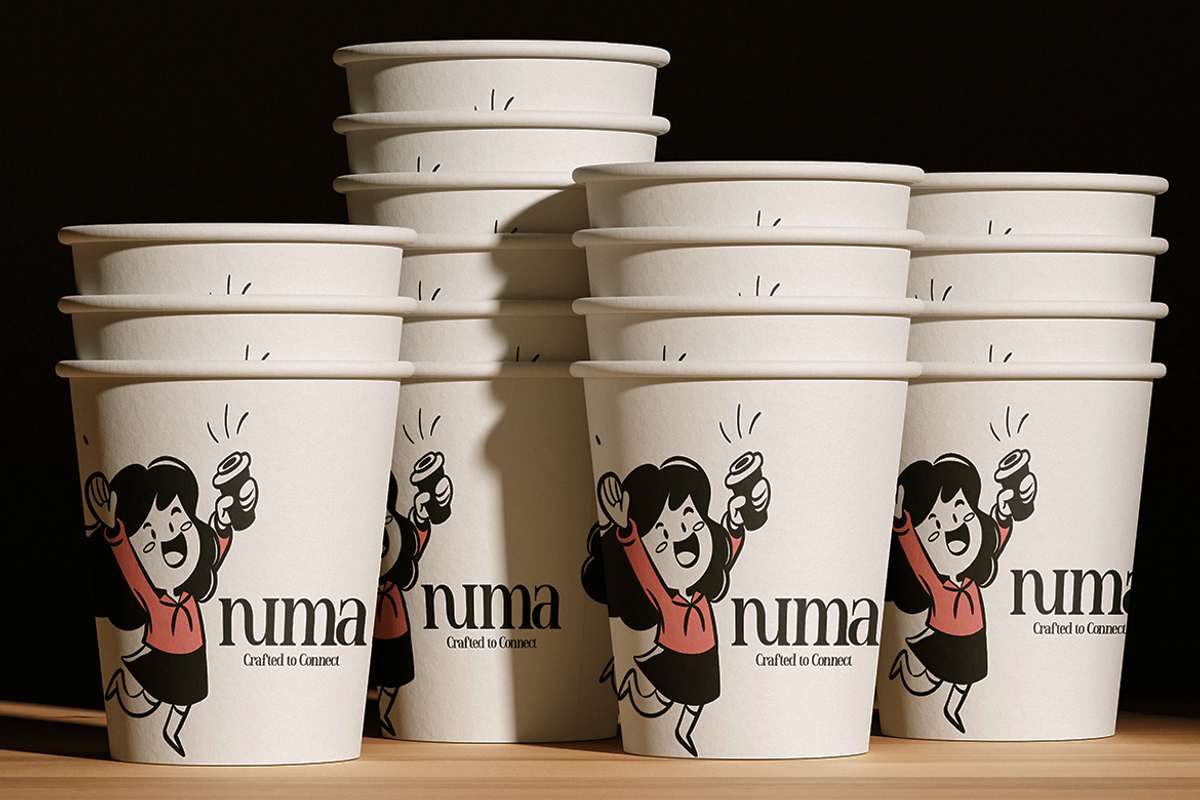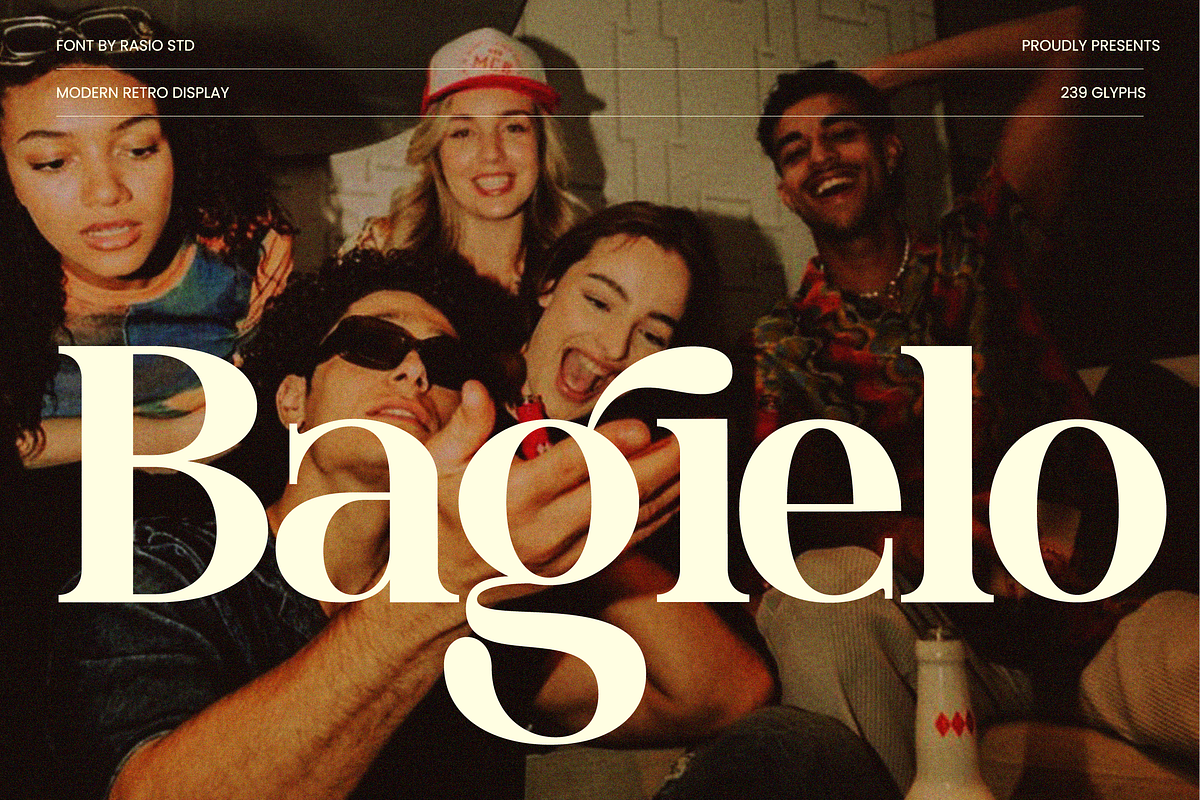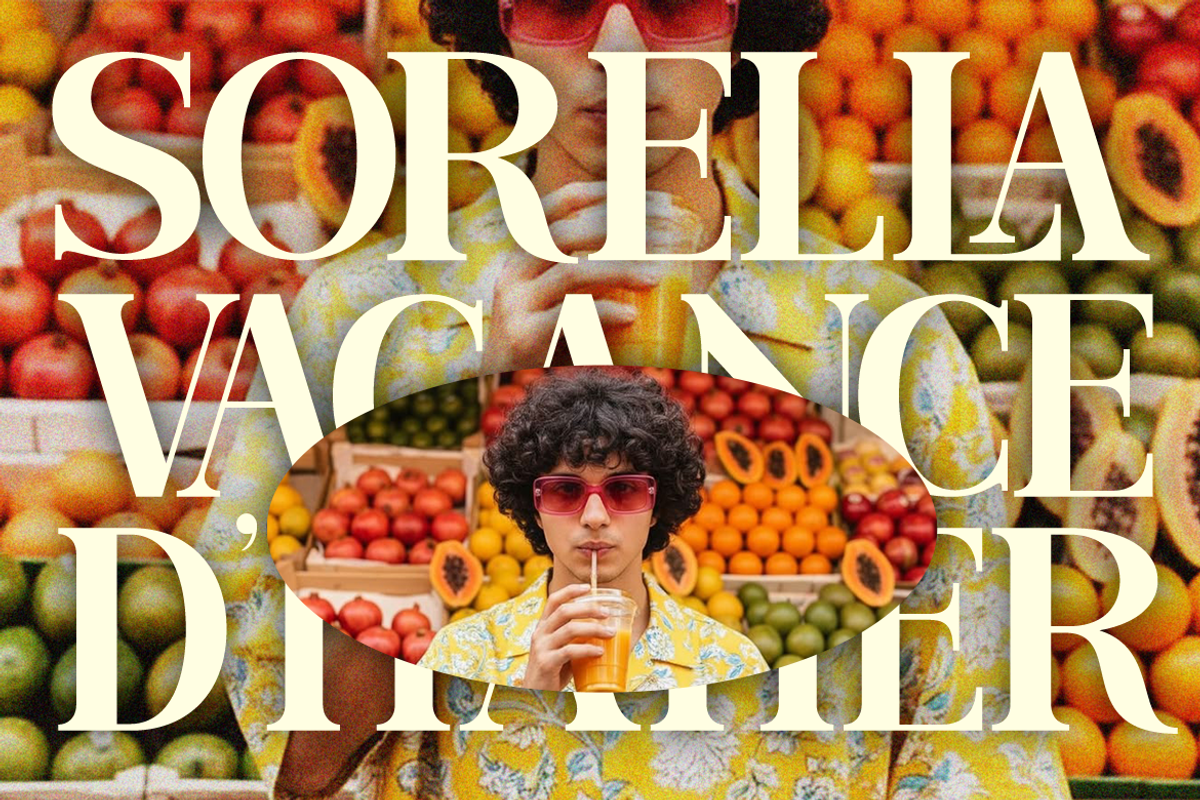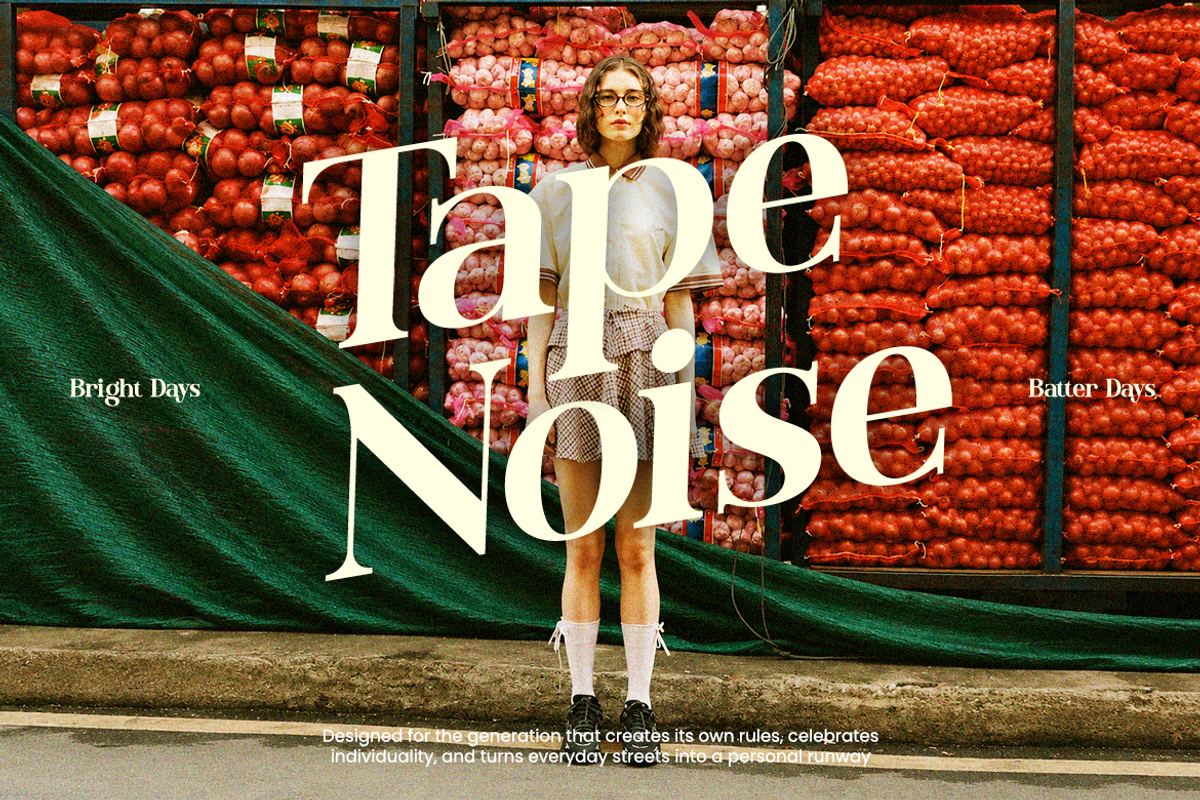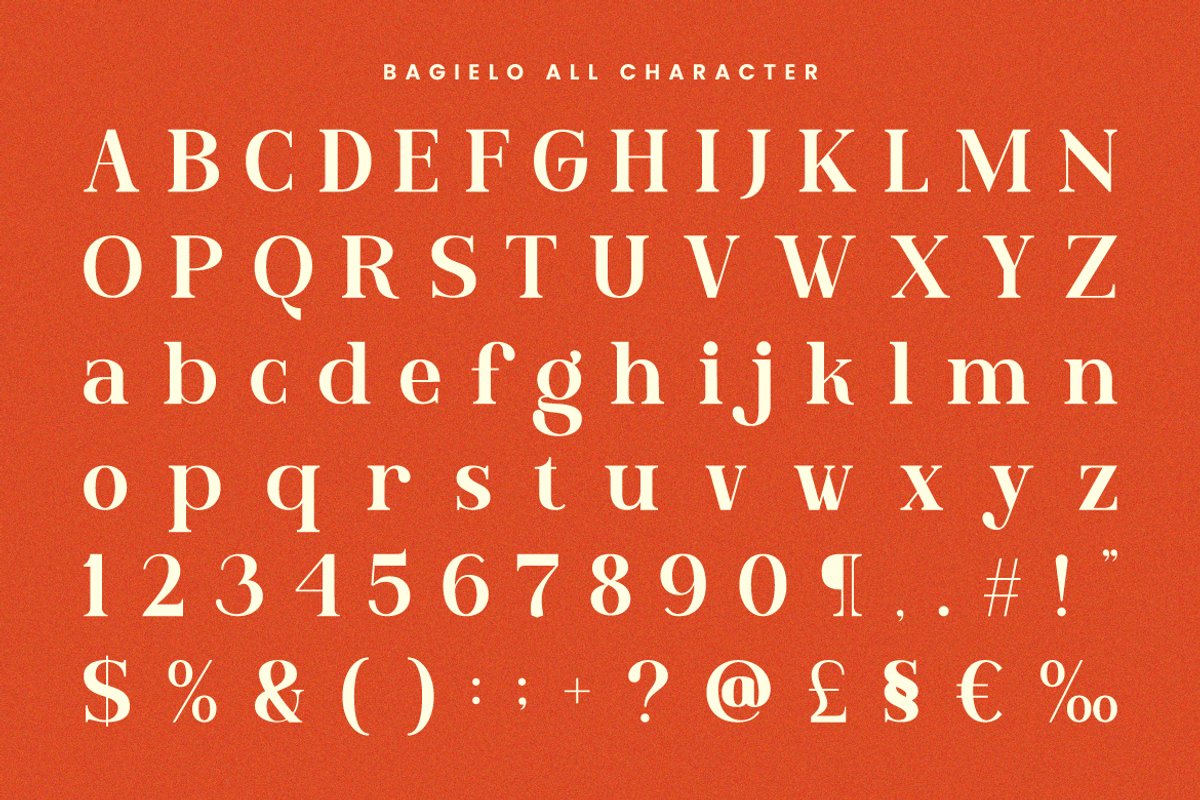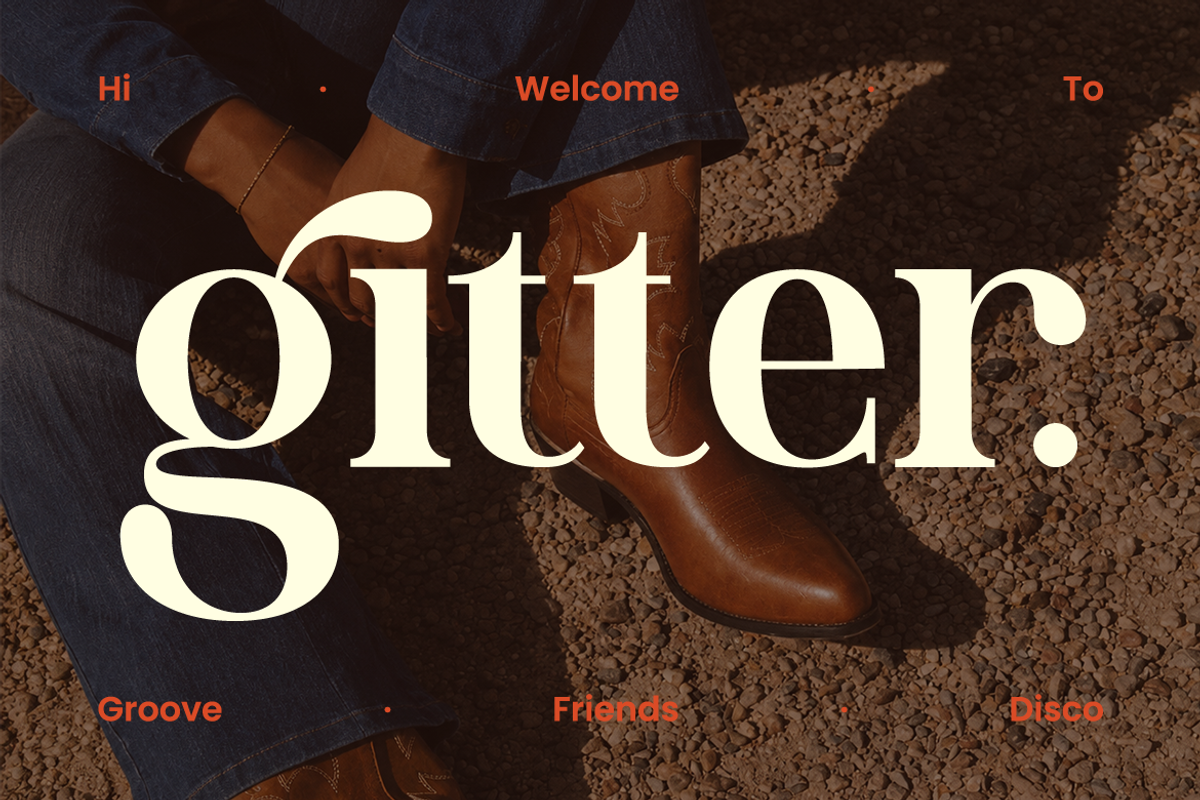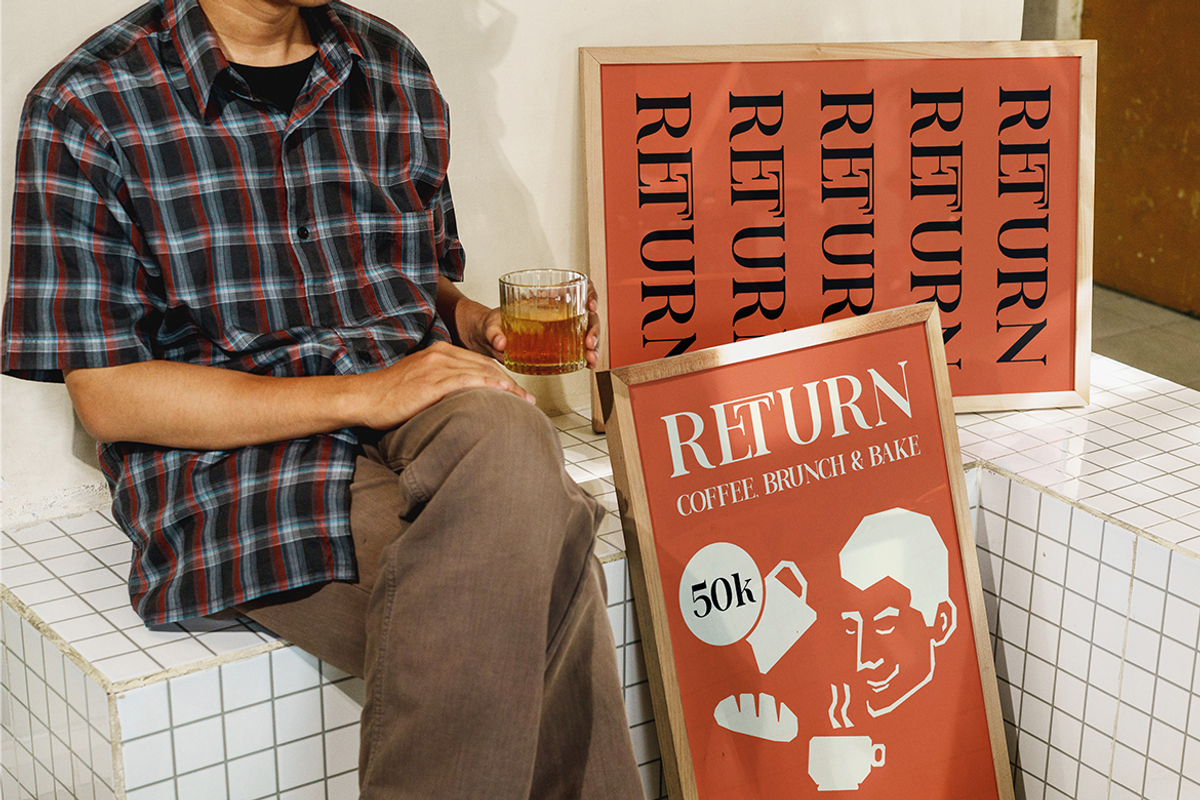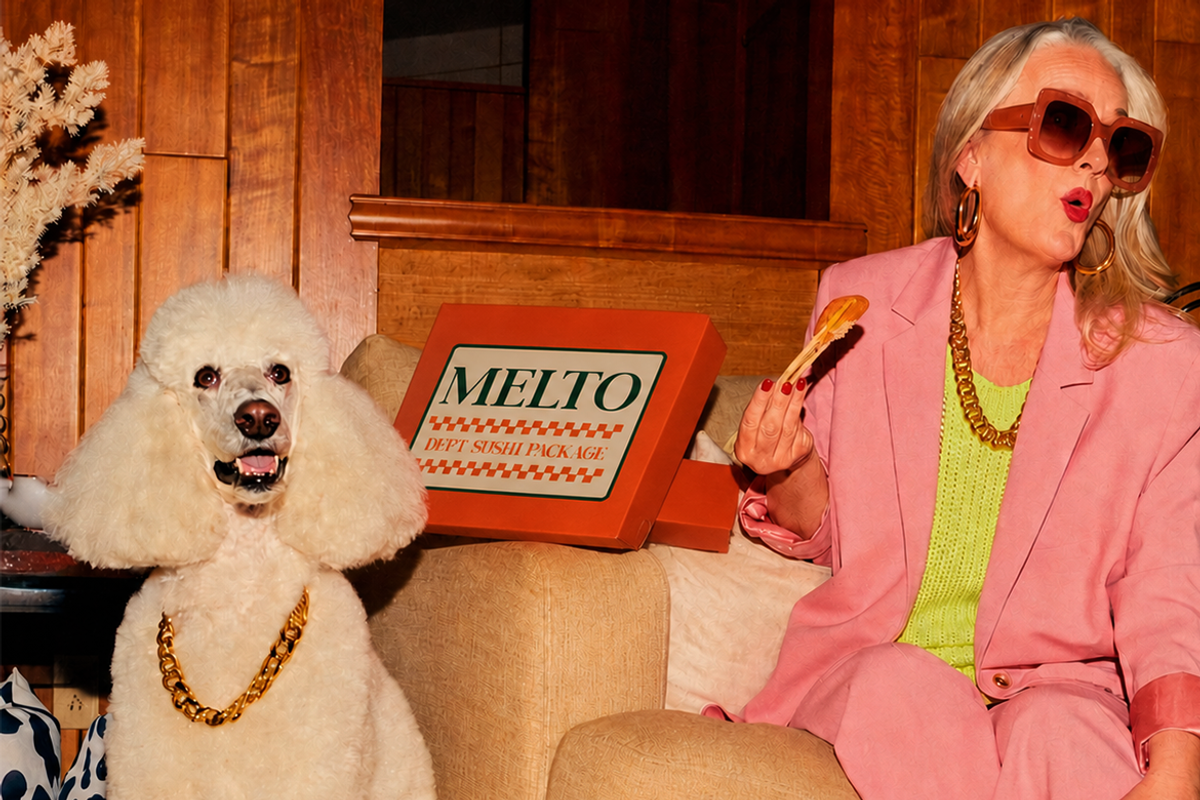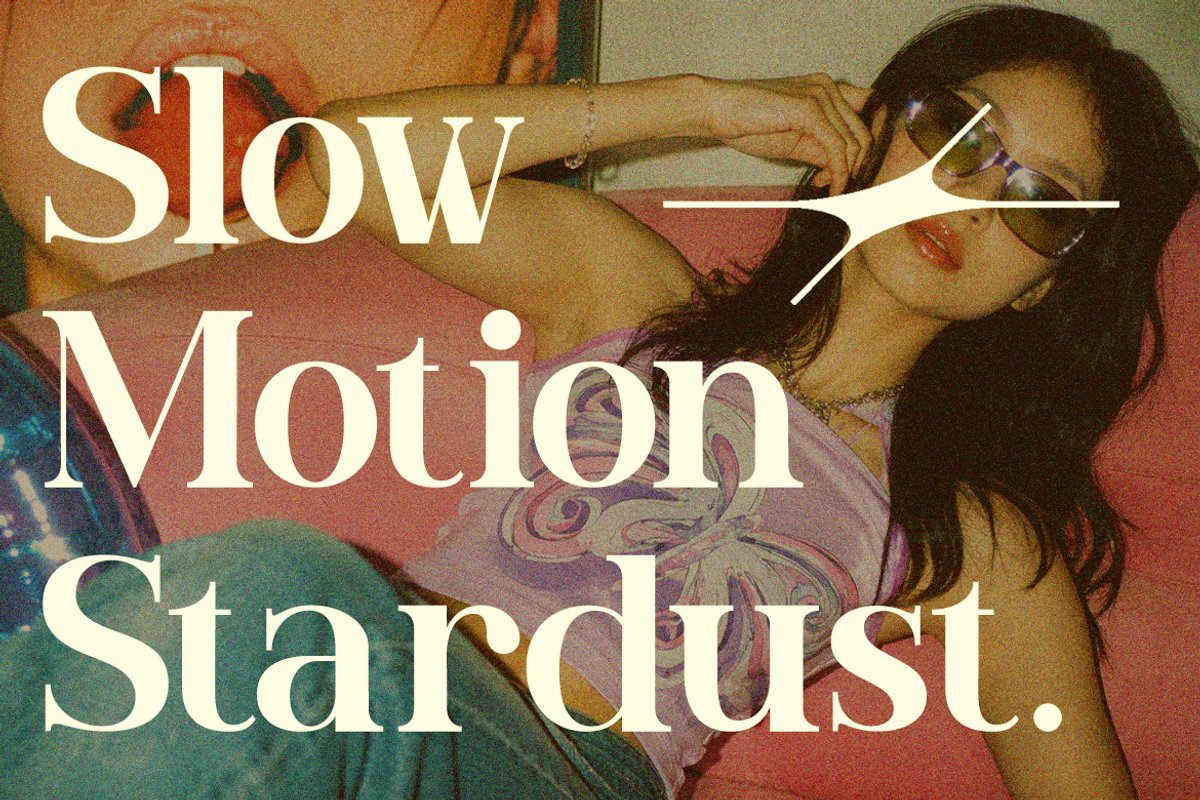
Bagielo Modern Retro Display Font
Bagielo Modern Retro Display Font is a striking serif typeface that combines vintage-inspired character with contemporary display styling. The font features high-contrast strokes, bold proportions, and expressive curves that create a strong visual presence while maintaining a refined typographic structure. Distinctive details such as the flowing descenders, sculpted terminals, and retro-influenced letterforms bring personality and movement to every composition. The balance between nostalgic aesthetics and modern execution makes Bagielo a versatile choice for projects that demand both character and impact.
Designed to stand out in large-format applications, Bagielo excels in branding, editorial design, advertising, packaging, and creative visual identities. Its bold display structure creates memorable headlines, logos, and promotional graphics, while the decorative serif details add depth and individuality to fashion campaigns, magazine covers, product labels, and social media content. Whether used in print or digital environments, Bagielo delivers typography that feels expressive, confident, and visually distinctive
High-contrast serif construction with bold proportions and refined stroke transitions
Retro-inspired letterforms that blend vintage charm with contemporary styling
Expressive curves and flowing character details that create visual movement
Distinctive terminals and sculpted shapes that enhance personality and recognition
Strong display-focused structure designed for impactful headlines and branding
Brand identity systems seeking a bold and memorable visual presence
Editorial magazines, cover designs, and feature headlines with strong character
Fashion campaigns and lifestyle branding inspired by vintage aesthetics
Product packaging and label design that benefit from expressive typography
Logo design and wordmark creation with distinctive serif details
Supports numerals, punctuation, and extensive symbol set
Capture attention instantly with Bagielo, distinctive serif designed for standout branding